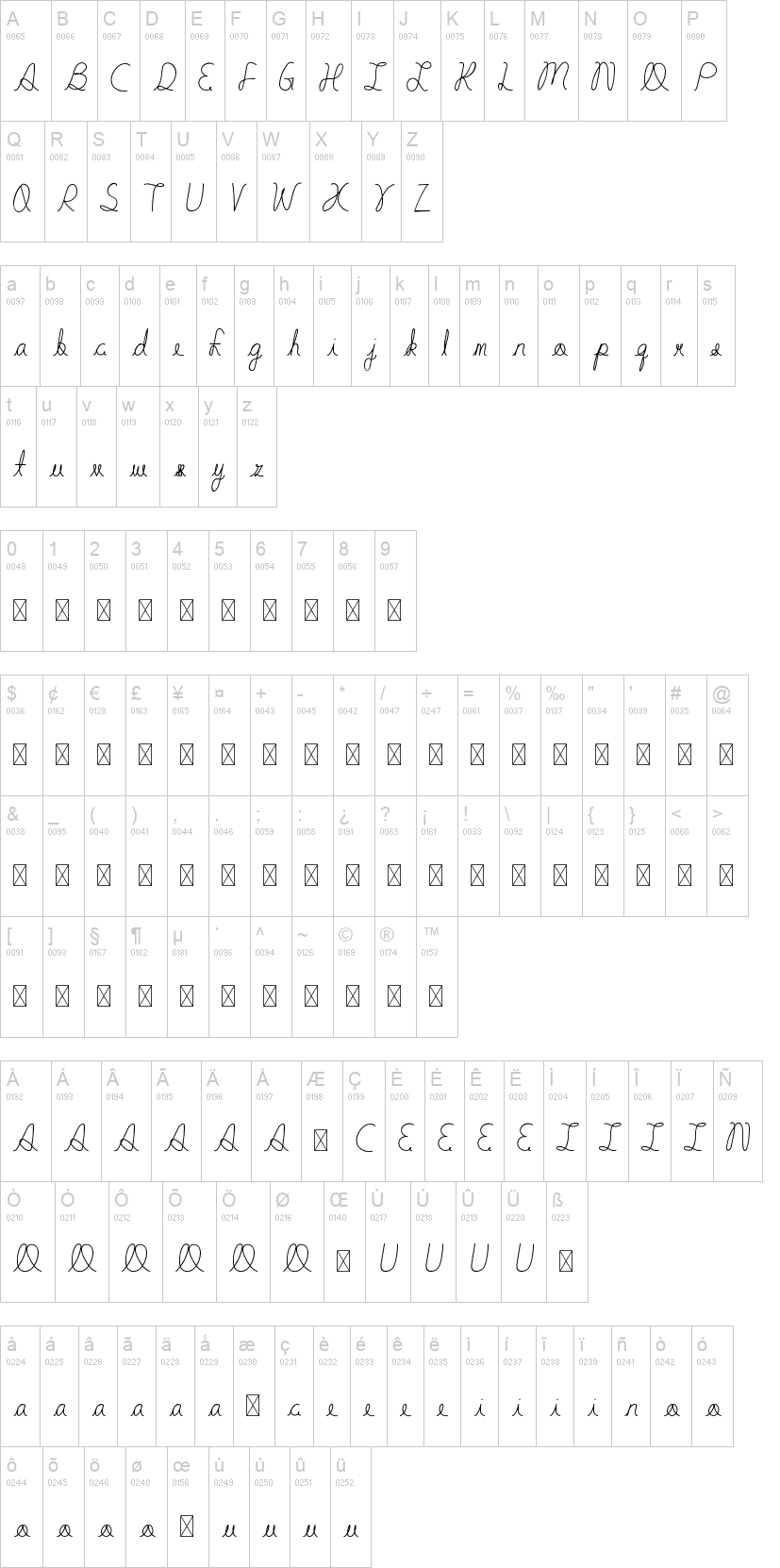
Sipping on Wine
Yayo YuYue
Script
Manoscritto
The handwriting of a socialite who could charm a crowd with just a smirk.
Sipping On Wine is a classy act. Top-notch visual with an undeniable sophistication for an array of creative pursuits.